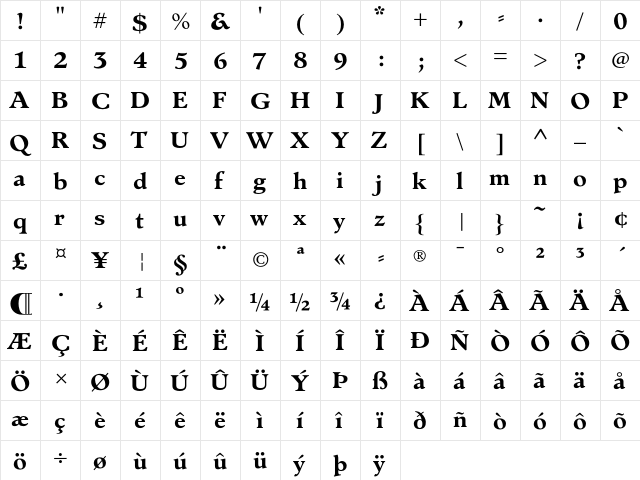
Nordik Regular
Design Context for Nordik Typeface
Nordik takes a measured approach to typography — its balanced proportions and neutral character make it a reliable workhorse for both digital and print work.
Pro Tip: Use Nordik in both headline and body roles to test its range before committing to a single application.